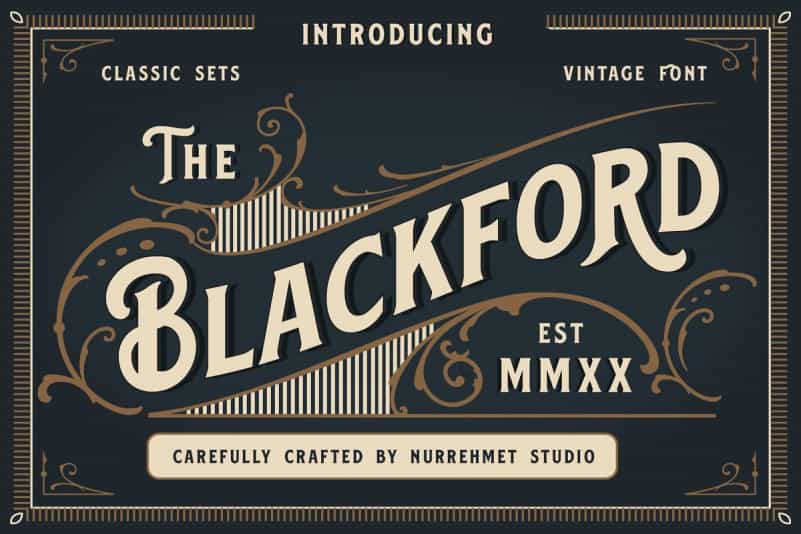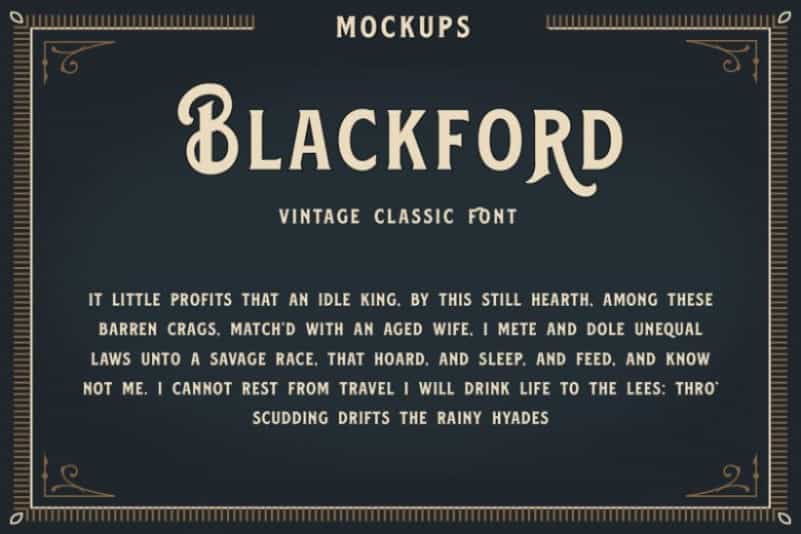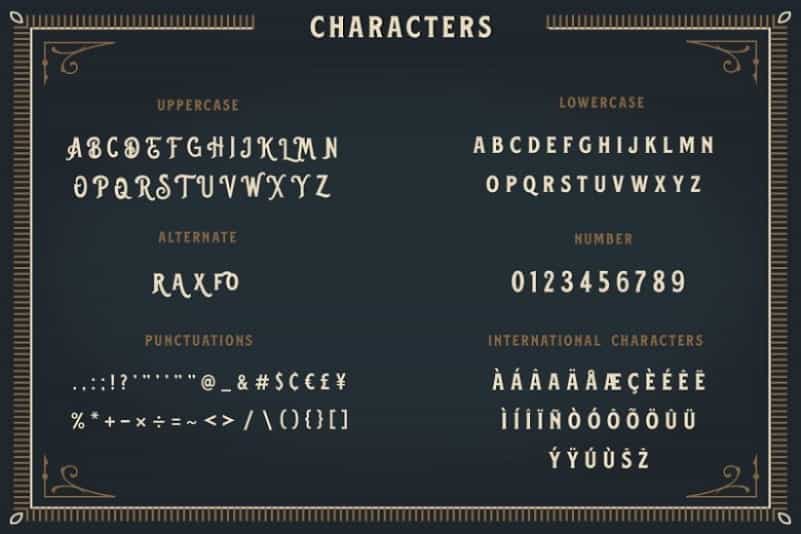
Blackford a serif font with an edgy style that is targeted at designs that have classic and vintage styles. It was created and distributed with Nurrehmet Studio. It’s a brand new vintage classic font that is inspired by vintage labelling and packaging.